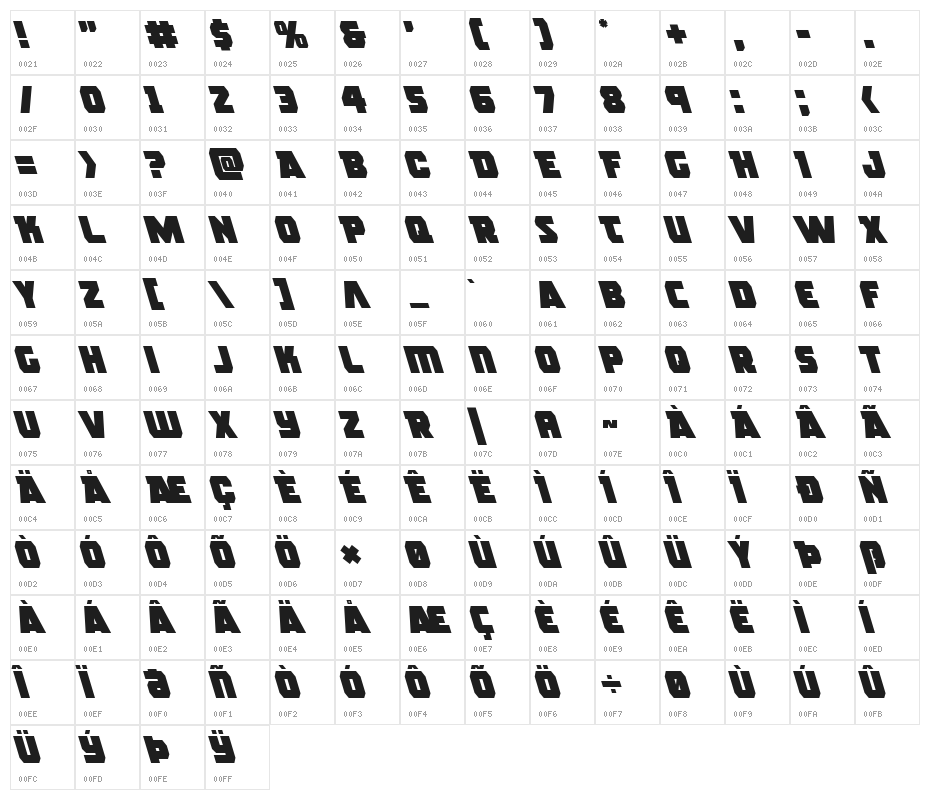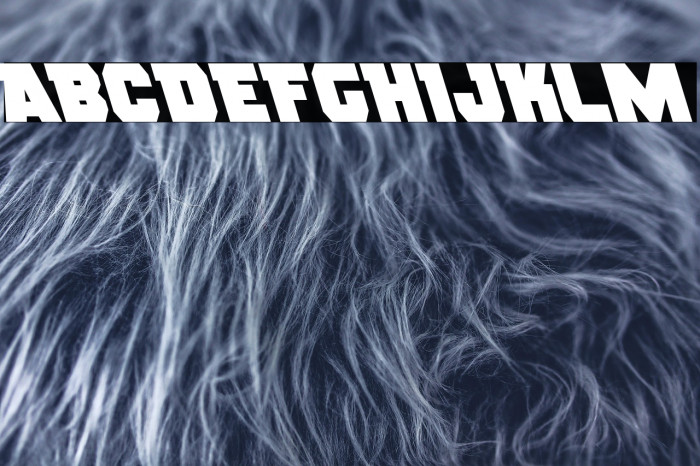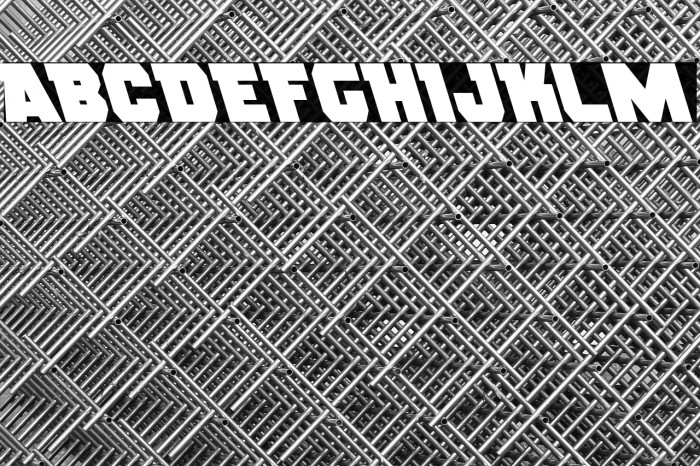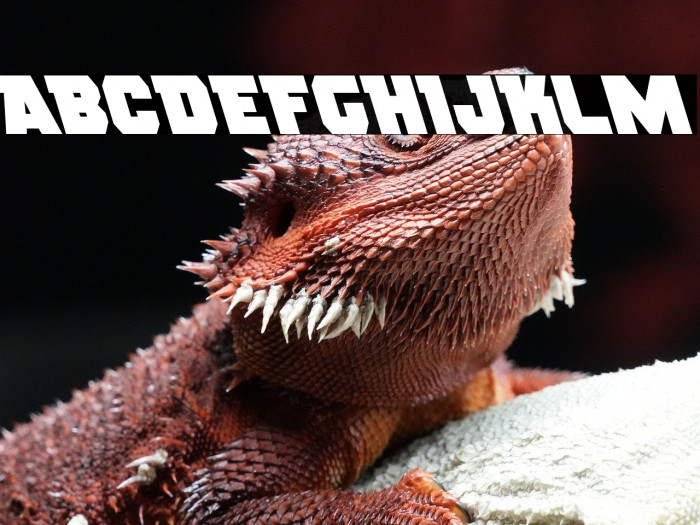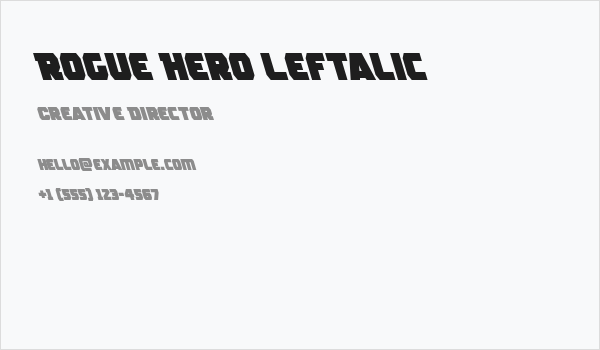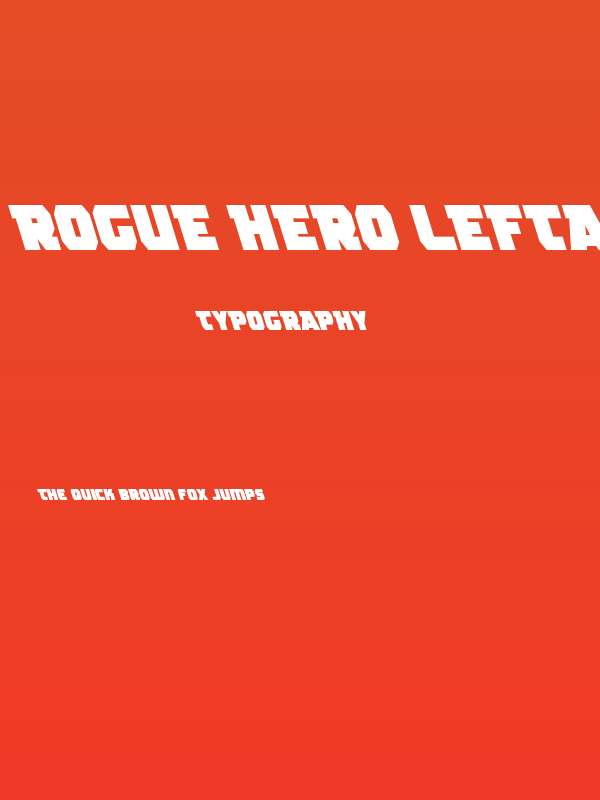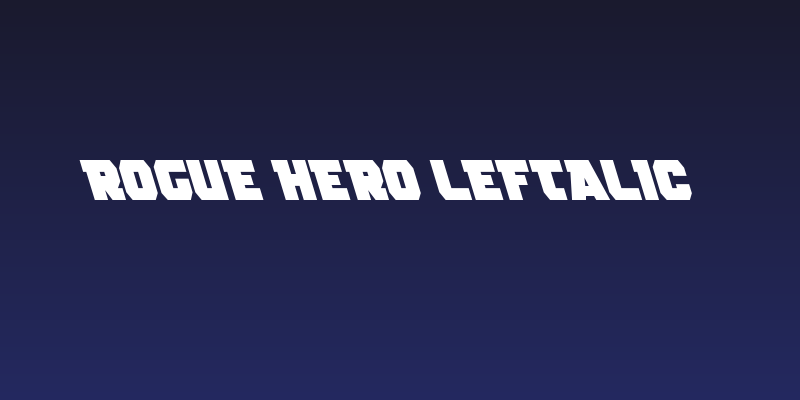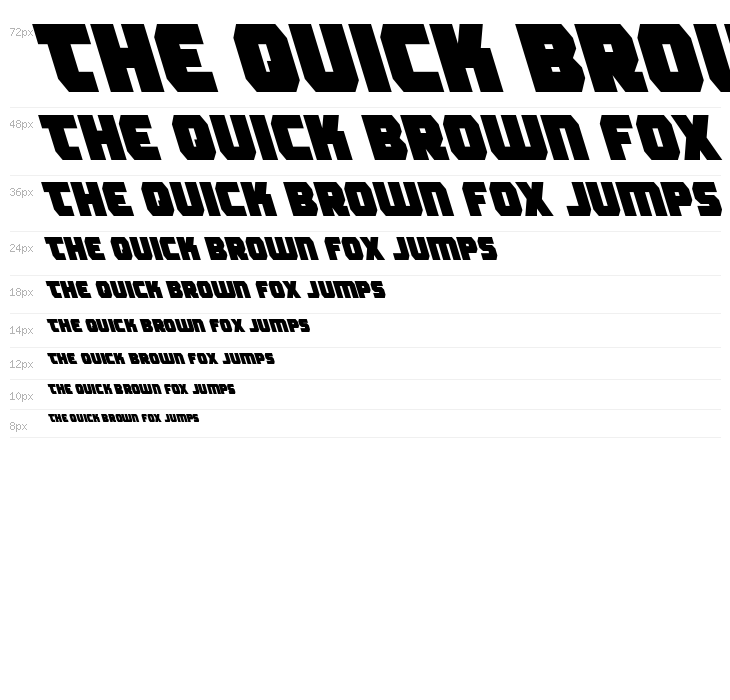
Rogue Hero Leftalic Font
Rogue Hero Leftalic Description
This font features a bold and dynamic style with a strong presence. The characters are heavily weighted and angular, giving a sense of power and movement. The letters are slightly slanted, adding a sense of urgency and action. The strokes are thick and consistent, providing a uniform appearance across all characters. This font is designed to capture attention and make a statement, suitable for impactful headlines and titles. The spacing between characters is tight, enhancing the compact and robust look of the text.
| Proposed Projects | Ideal for use in action-themed posters, video game titles, sports branding, and any project requiring a bold, impactful typeface. |